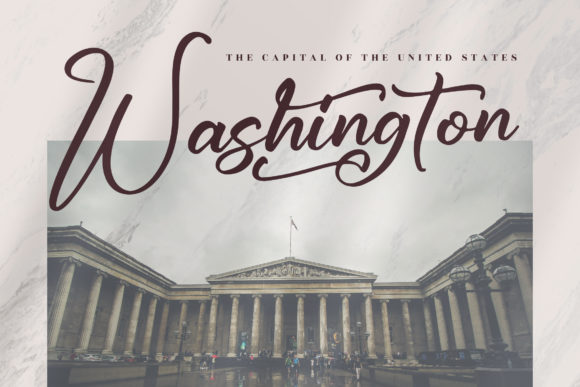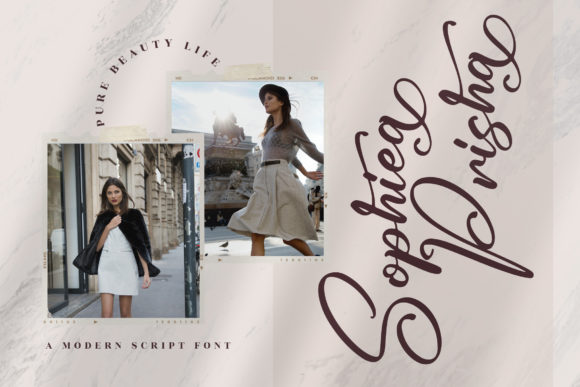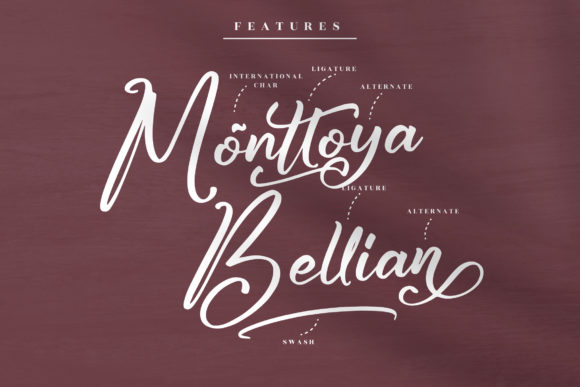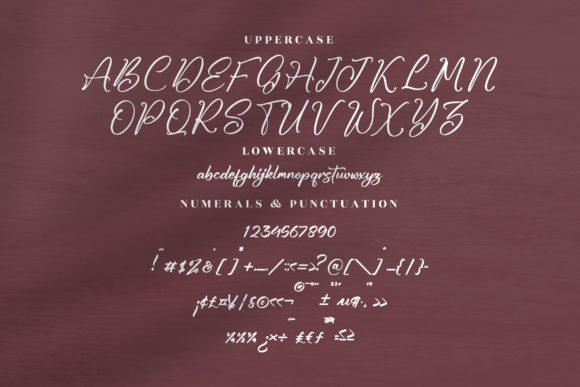
About Jhoey Washington Font
Jhoey Washington is a beautiful and stylish script font. It has beautiful and well balanced characters and as a result, it matches a wide pool of designs. This font is PUA encoded which means you can access all of the glyphs and swashes with ease!